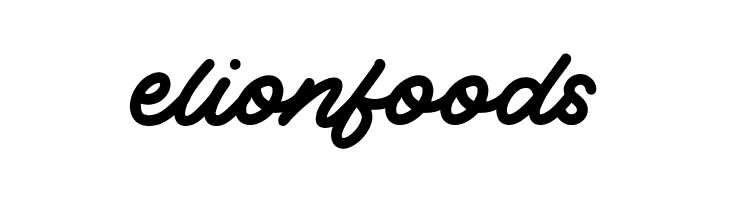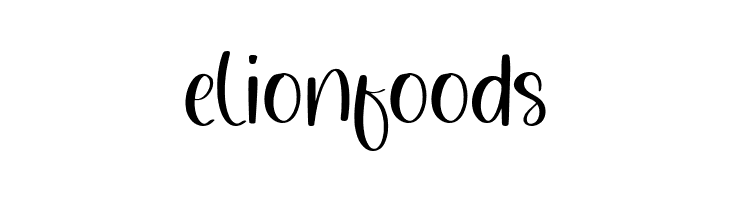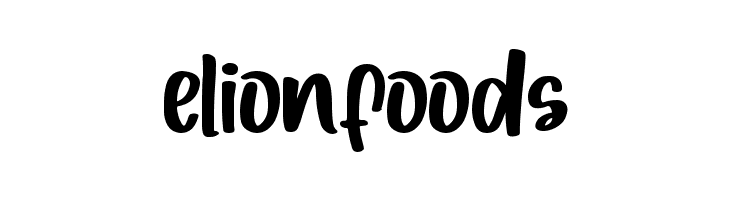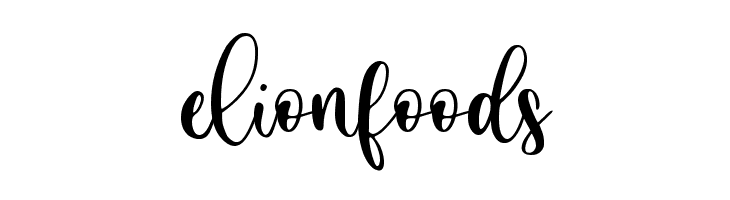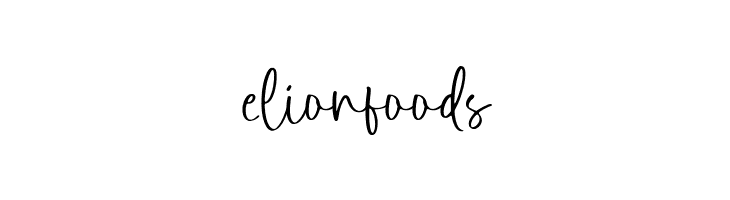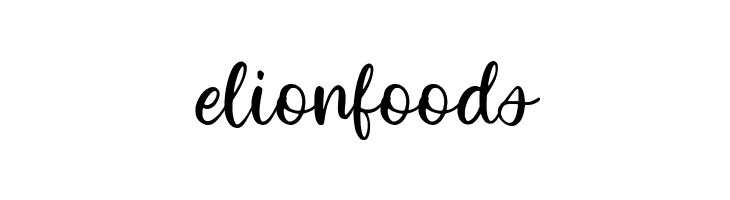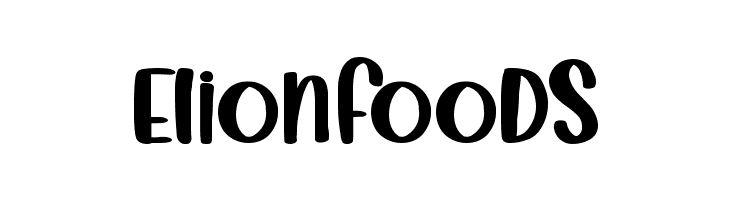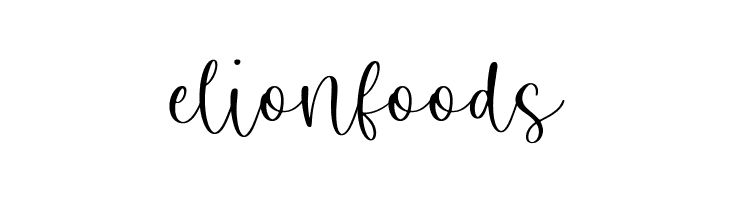
• White Apricot
A playful and elegant script font with a handwritten feel.
• White Bowling
A lively, expressive handwritten font with dynamic cursive letterforms.
• White Butter
A playful, cursive font with smooth, flowing strokes and elegant charm.
• White Daisy
A playful, bold handwritten font with rounded edges and a whimsical style.
• White Wonder
A smooth, flowing script font with a natural handwriting style.
• Whiteland
A playful, flowing script font with smooth, rounded edges and consistent stroke width.
• Whitestar
A playful and elegant handwritten font with fluid strokes.
• Wild Romance
A playful, handwritten font with smooth, fluid strokes and a casual style.
• Wild Hazelnut
• Wildfire Dreams
A casual, handwritten cursive font with a fluid and dynamic style.